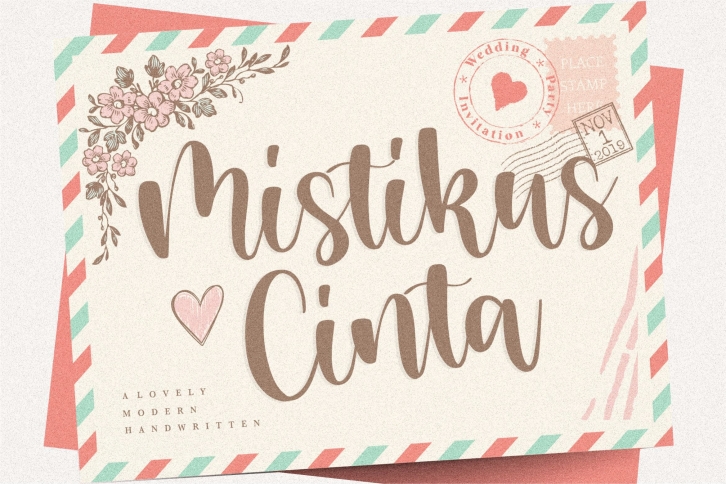
Proudly Present, Mistikus Cinta Font
Mistikus Cinta is a beautiful and elegant handwritten font. Fall in love with its incredibly versatile style and use it to create gorgeous wedding invitations, beautiful stationary art, eye-catching social media posts, and much more!